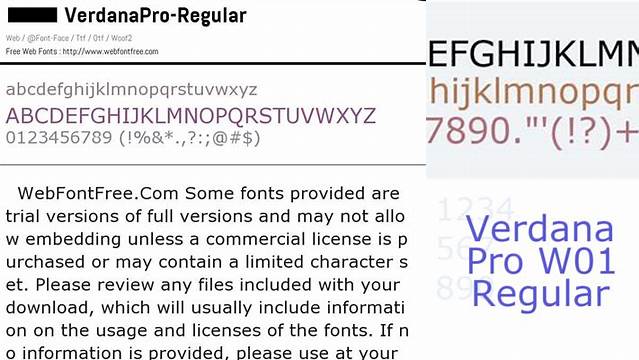
Verdana Pro Download: Free Font Guide
Hey guys, are you on the hunt for the Verdana Pro font? You're in the right place! This article is your go-to guide to everything about the Verdana Pro font, how to download it, and how to use it to level up your design game. We'll dive into the history, the features, and some handy tips. So, buckle up, because we're about to get into the nitty-gritty of this super versatile font! Let's get started!
What is Verdana Pro?
Alright, first things first: What exactly is Verdana Pro? In a nutshell, it's a modern take on the classic Verdana font. Designed by the legendary Matthew Carter and released by Microsoft, Verdana was created with readability in mind, especially for on-screen use. Verdana Pro takes it up a notch by offering extended character sets and advanced OpenType features. It's like the original Verdana, but with more options and flexibility. Think of it as the super-powered version, perfect for both web and print design.
One of the coolest things about Verdana Pro is its legibility. Carter designed it to be easily readable even at smaller sizes and on low-resolution screens. This makes it a fantastic choice for body text, especially in digital environments. The font's simple, clean design also gives it a timeless appeal, making it suitable for a wide variety of projects. From website layouts to printed documents, Verdana Pro can handle it all. The Pro version includes a broader range of weights and styles, such as italic and bold, offering designers greater control over their typography. Also, support for different languages and character sets makes Verdana Pro a global font, capable of displaying text in various scripts. It's a workhorse that combines functionality with design elegance, and if you want a versatile font that's easy on the eyes, you can not go wrong with the font.
For those of you who are new to typography, the term "font" and "typeface" can sometimes be confusing. While the typeface is the design of the letters, numbers, and symbols, the font is the specific implementation of that design. Verdana is the typeface, while Verdana Pro is a font that implements that typeface with added features. And because it's designed with clarity in mind, it can make your design a lot more professional. To summarize, Verdana Pro is a font built for readability and flexibility, making it perfect for everything from websites to documents.
Using Verdana Pro in Your Projects
So, you've got Verdana Pro (or a great alternative). Now, how do you use it to make your designs pop? Let's go over some tips! Verdana Pro is ideal for body text because of its readability. Here are some ways to use it:
- Website Design: In website design, Verdana Pro excels as a body font. Use it for articles, blog posts, and other content-heavy areas where clear readability is crucial. Its clean lines and legibility make it a great choice for displaying text on screens, especially on websites with a lot of text. Experiment with different font sizes and line heights to find what works best for your design.
- Print Materials: Verdana Pro isn't just for the web. It also works great in print. Consider using it for brochures, flyers, and documents where a clean and readable font is needed. The font's versatility allows it to be used in a lot of different kinds of projects. Use it to create a consistent look and feel across your projects.
- Headers and Titles: While Verdana Pro is amazing for body text, use it sparingly for headers and titles. It can work, but consider pairing it with a more decorative font to create visual interest. When used for headlines, make sure the size is large enough to maintain legibility and avoid making it look dull.
- Experiment with Weights and Styles: Verdana Pro includes various weights, like light, bold, and italic. Use these different styles to emphasize certain parts of your text or add visual hierarchy. For example, use bold for headers or important callouts, and italic for quotes or emphasis.